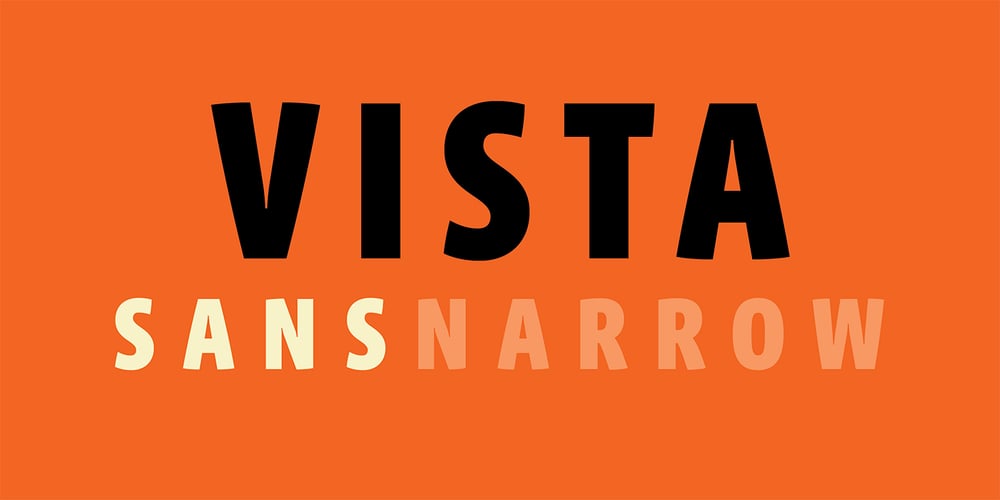
Vista Sans Narrow Font Family was designed by Xavier Dupré and published by Emigre. Vista Sans Narrow contains 12 styles and family package options. The Sans Narrow and Slab versions were added to the Vista family in 2008, extending this super-family to a total of 108 fonts. For more information, see the original Vista Sans Design Information.